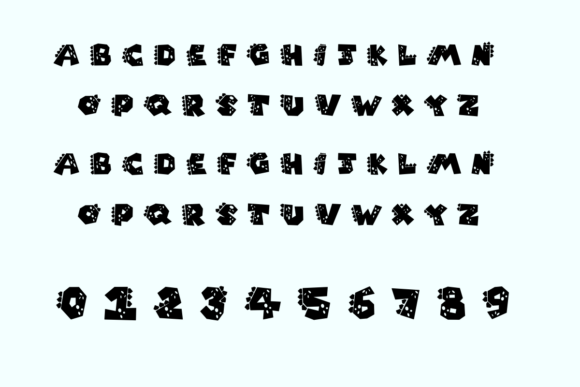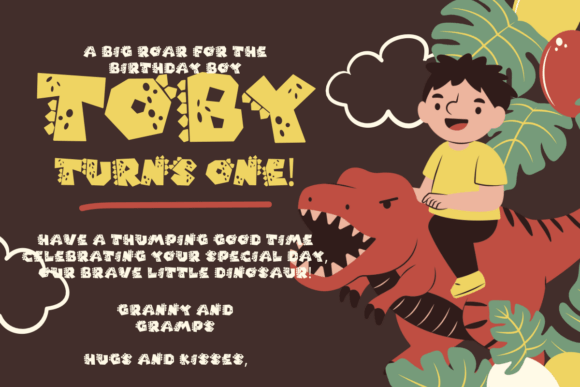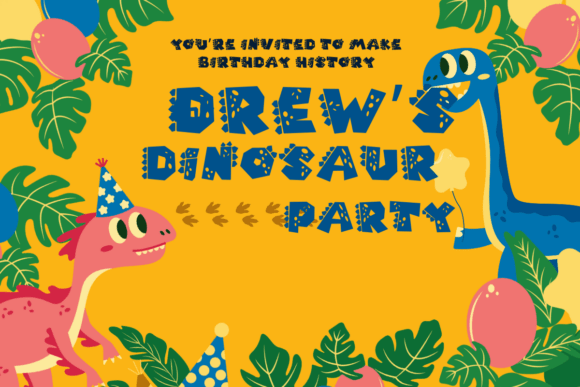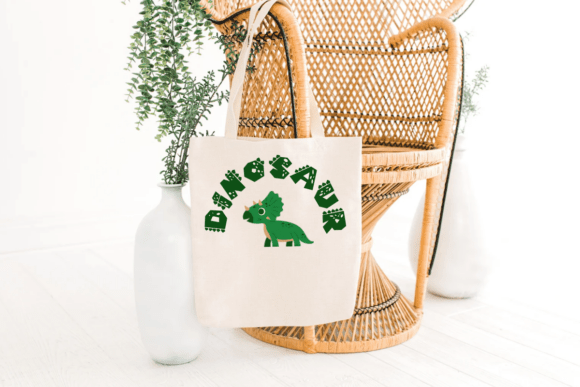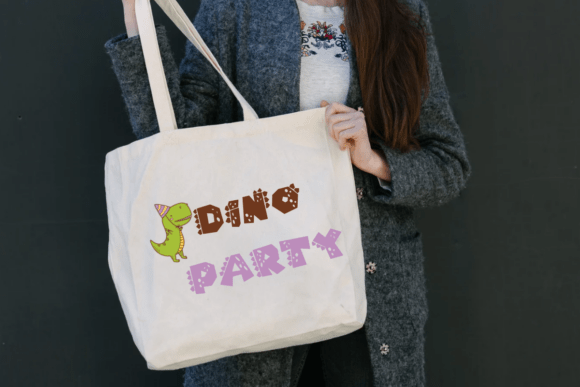
The Joy of Typography: Discovering the Magic of Baby Dinosaurs Font
Have you ever found yourself scribbling down notes in a quirky notebook or jotting down ideas in a colorful journal, only to realize that the right font can elevate the entire experience? For designers and creatives, the search for the perfect font is a constant pursuit, and Baby Dinosaurs Font is one that’s sure to delight.
Baby Dinosaurs Font is a decorative font that’s perfect for adding a touch of whimsy to your designs. Whether you’re writing a diary entry, creating a greeting card, or designing a social media post, this font is sure to bring a smile to your face. But its value extends beyond just aesthetics – for designers, Baby Dinosaurs Font offers a versatile tool that can be used in a wide range of projects, from banners to mugs, and everything in between.
Baby Dinosaurs Font Key Features
- Font Size: 6,000 glyphs, covering a wide range of characters
- Resolution: High-resolution fonts suitable for print and digital use
- Unique Characteristics: Whimsical and playful design, featuring baby dinosaurs and prehistoric elements
- Style Variations: Includes various font styles, such as bold, italic, and outline versions
Baby Dinosaurs Font Review
I recently had the chance to work with the “Baby Dinosaurs Font” and I must say it’s an interesting addition to any design project. Here are my thoughts on what works well and what doesn’t.
- Unique and playful design: The font has a whimsical feel to it, perfect for projects that require a touch of fun and personality.
- Great for children’s content: The font’s dinosaur theme makes it an obvious choice for kids’ books, educational materials, or any content targeting young audiences.
- Customizable: The font comes with various styles and weights, allowing designers to mix and match to suit their needs.
- Limited versatility: While the font is great for kids’ content, it may not be the best choice for more formal or professional projects.
- Not suitable for body text: Due to its playful nature, the font may be distracting when used for large blocks of text.
- Some characters may be inconsistent: I noticed a few instances where the font’s character shapes were slightly off, which could be a concern for designers seeking precision.
The “Baby Dinosaurs Font” is a fun and creative addition to any design project, but it’s essential to understand its limitations and use it accordingly. With some careful consideration, it can be a valuable asset for designers working on kids’ content or other projects that require a playful touch.
The “Baby Dinosaurs Font” is perfect for:
Children’s party invitations and decorations
Illustrated children’s books and stories
Fun and playful social media graphics
Theme park and event marketing materials